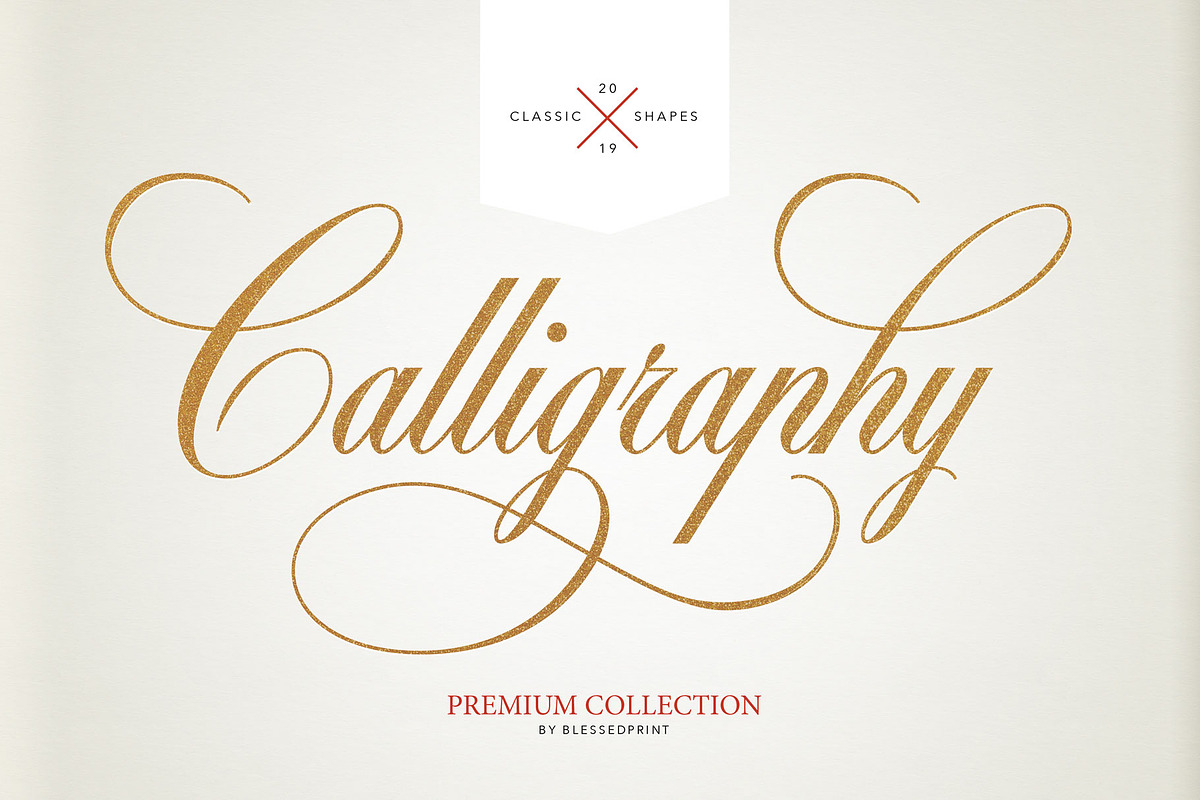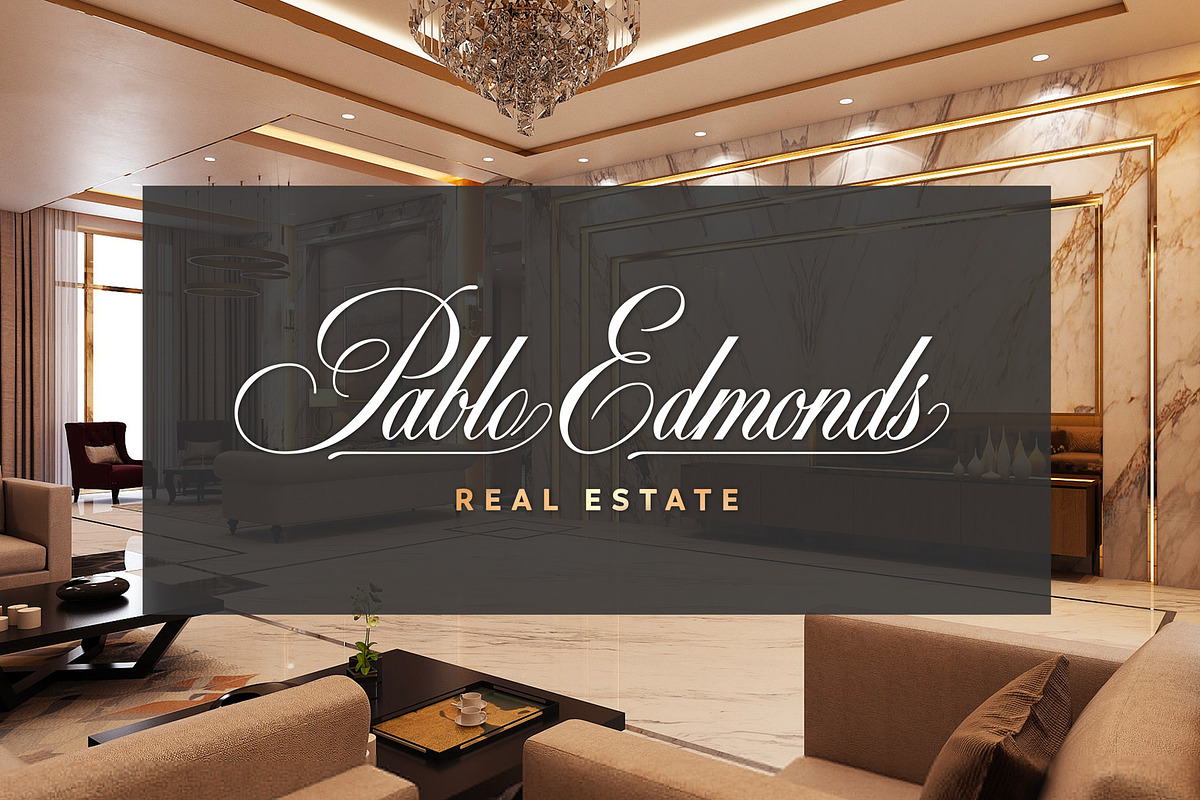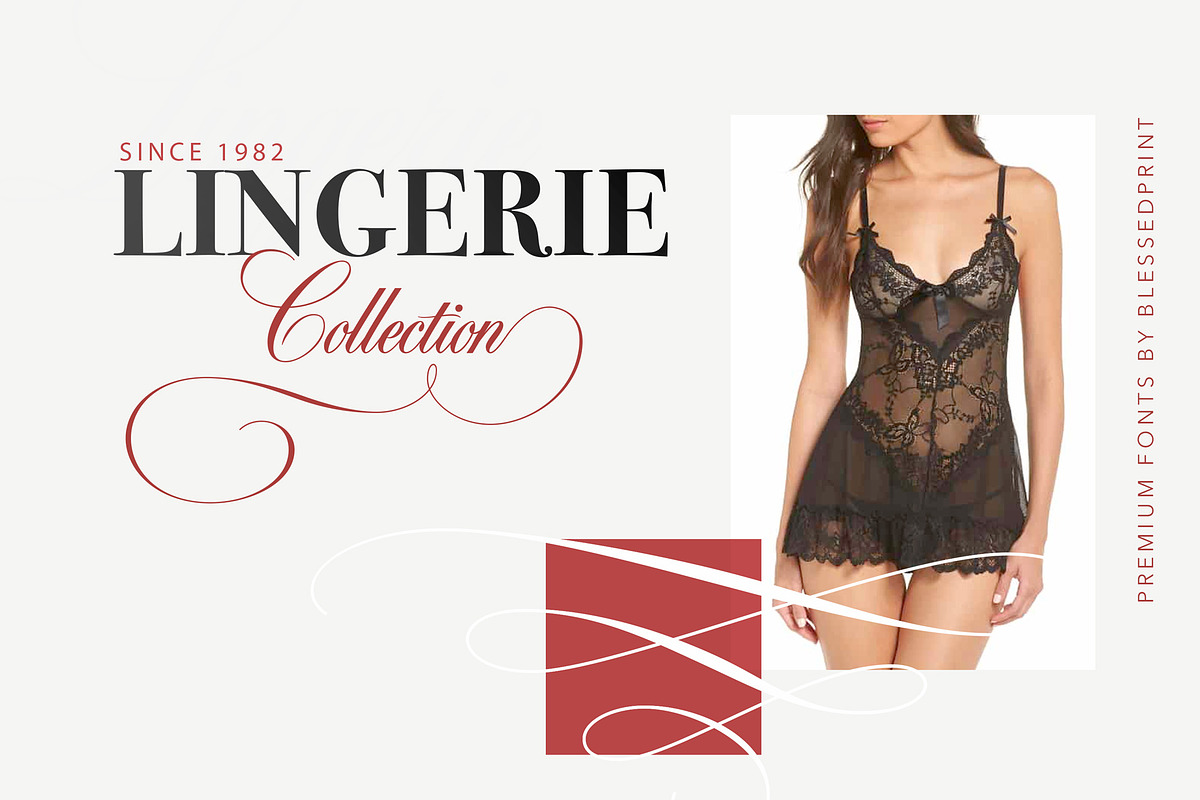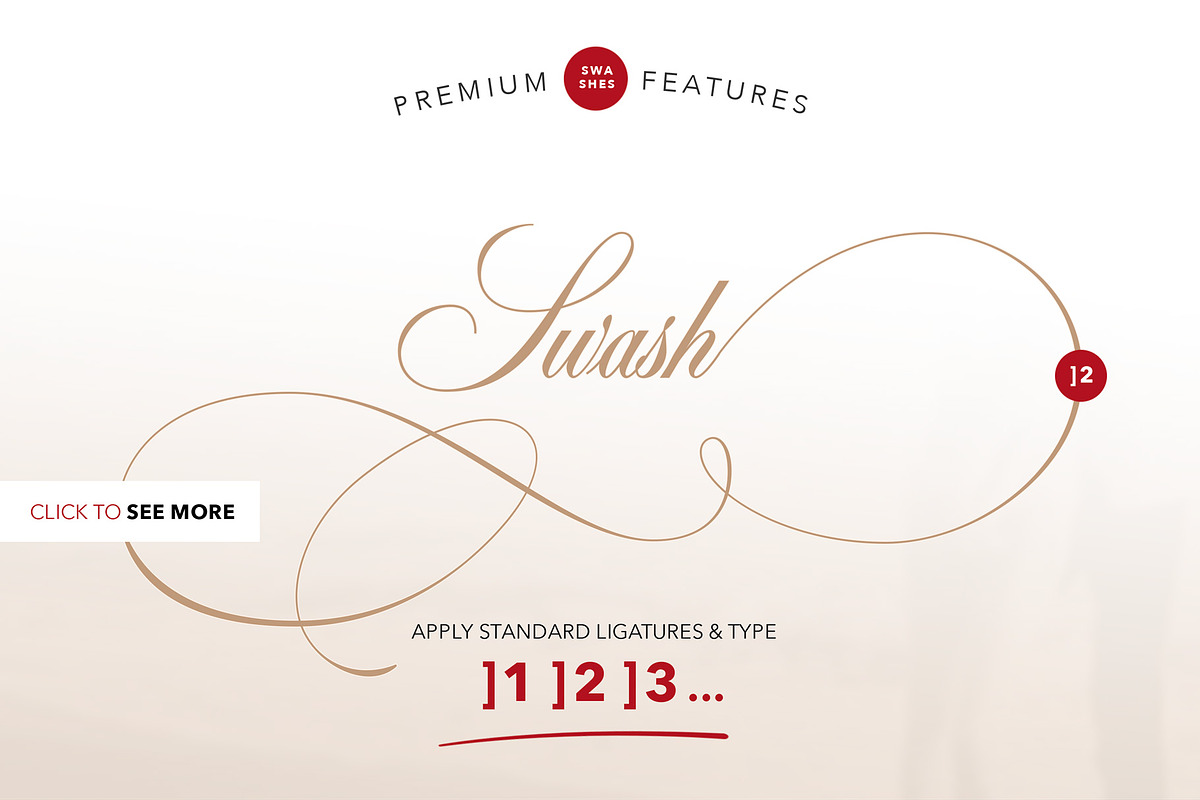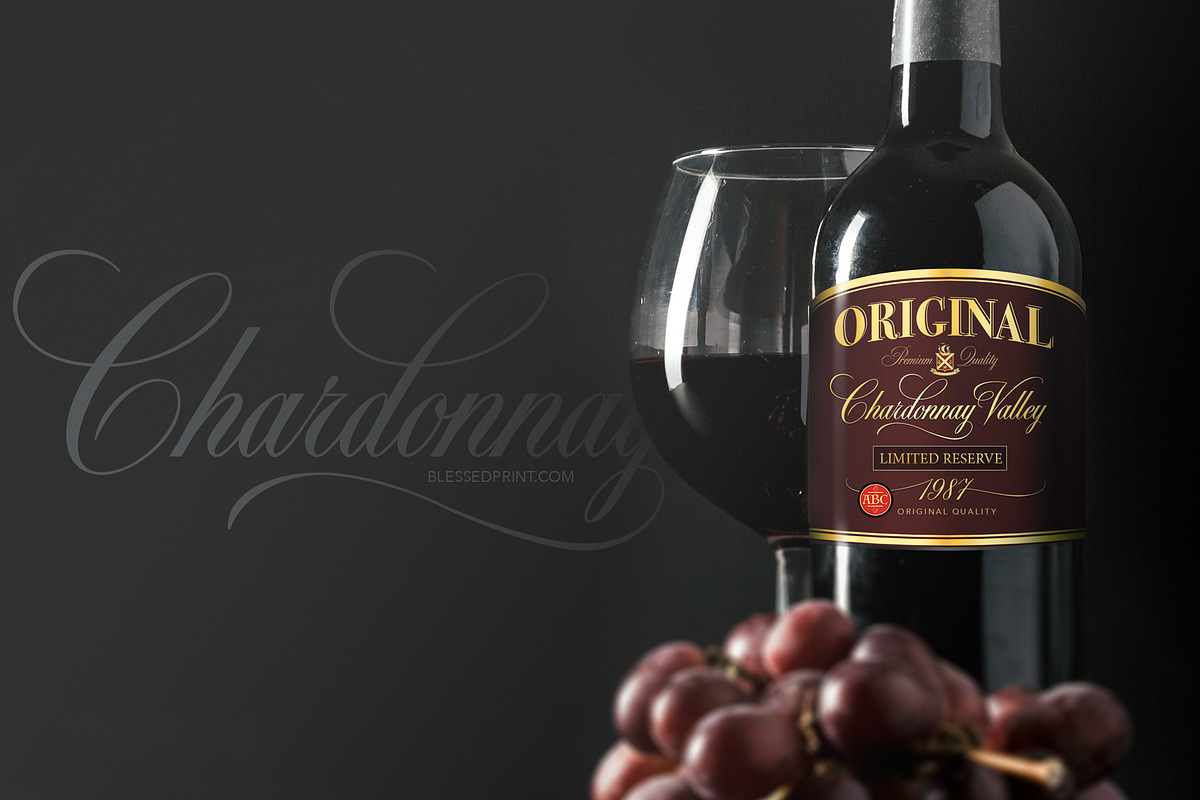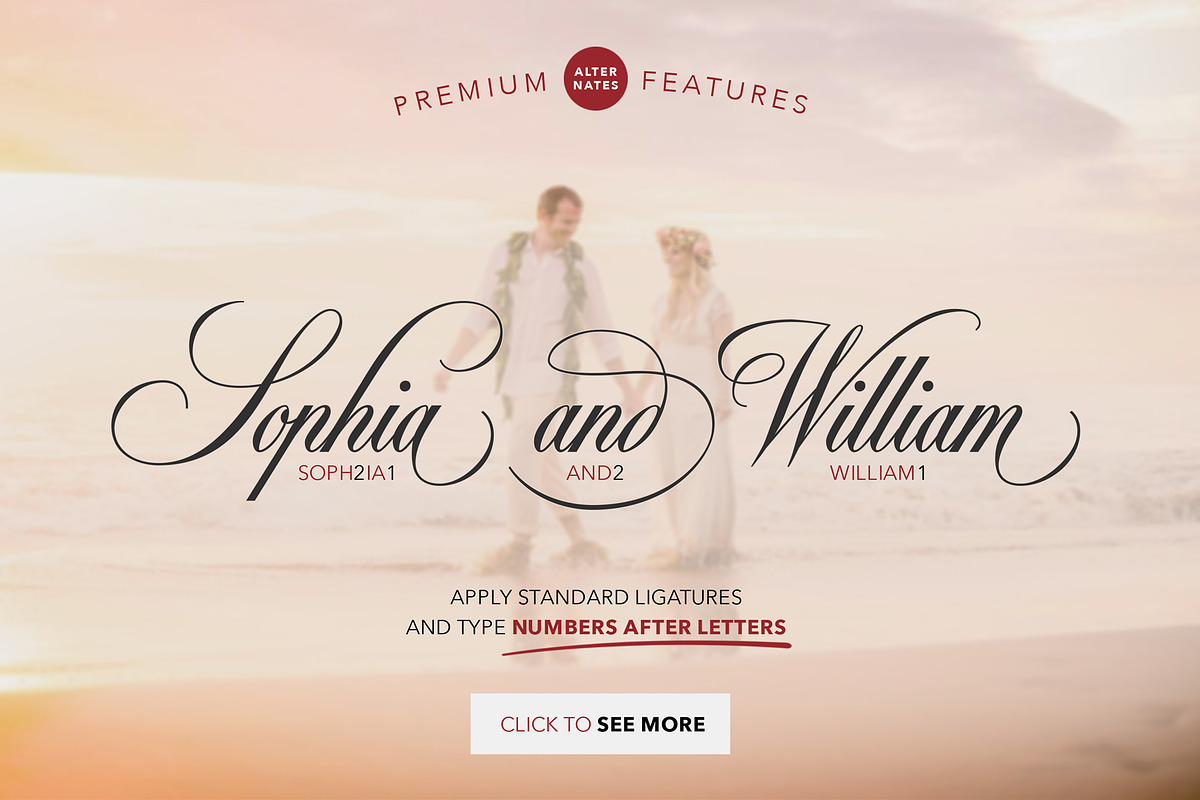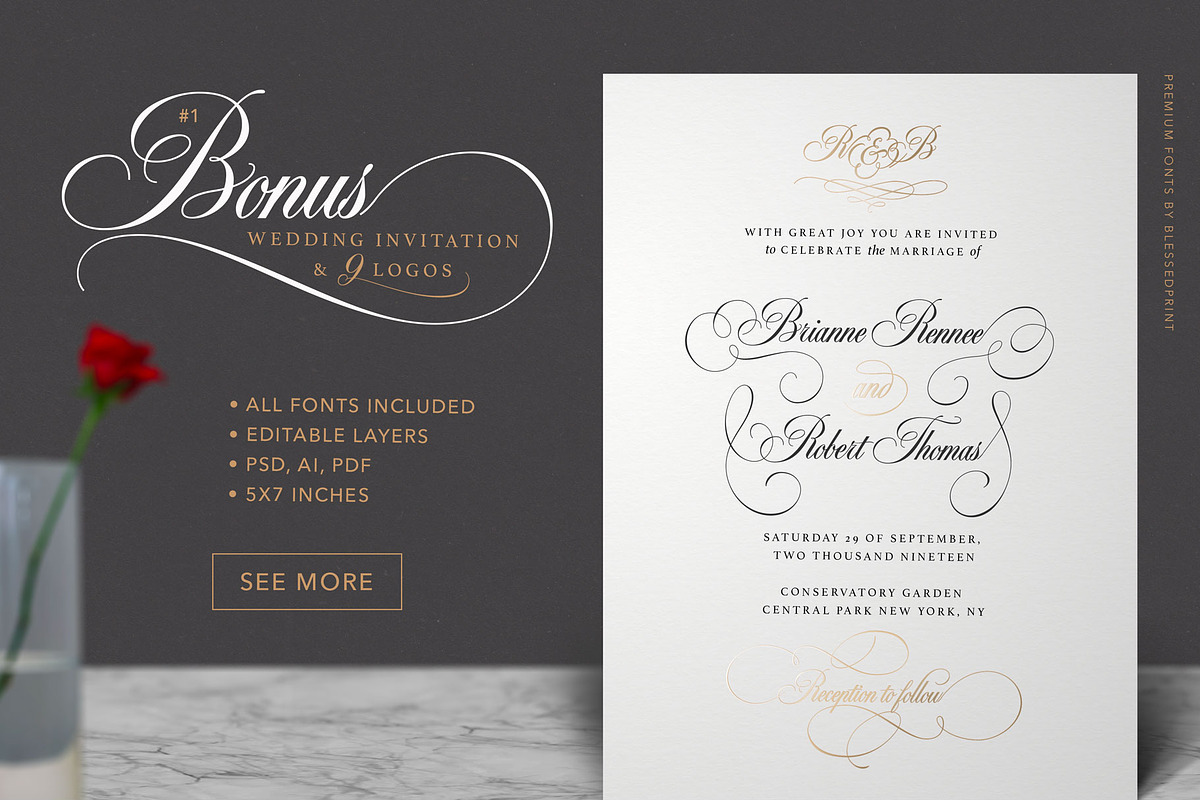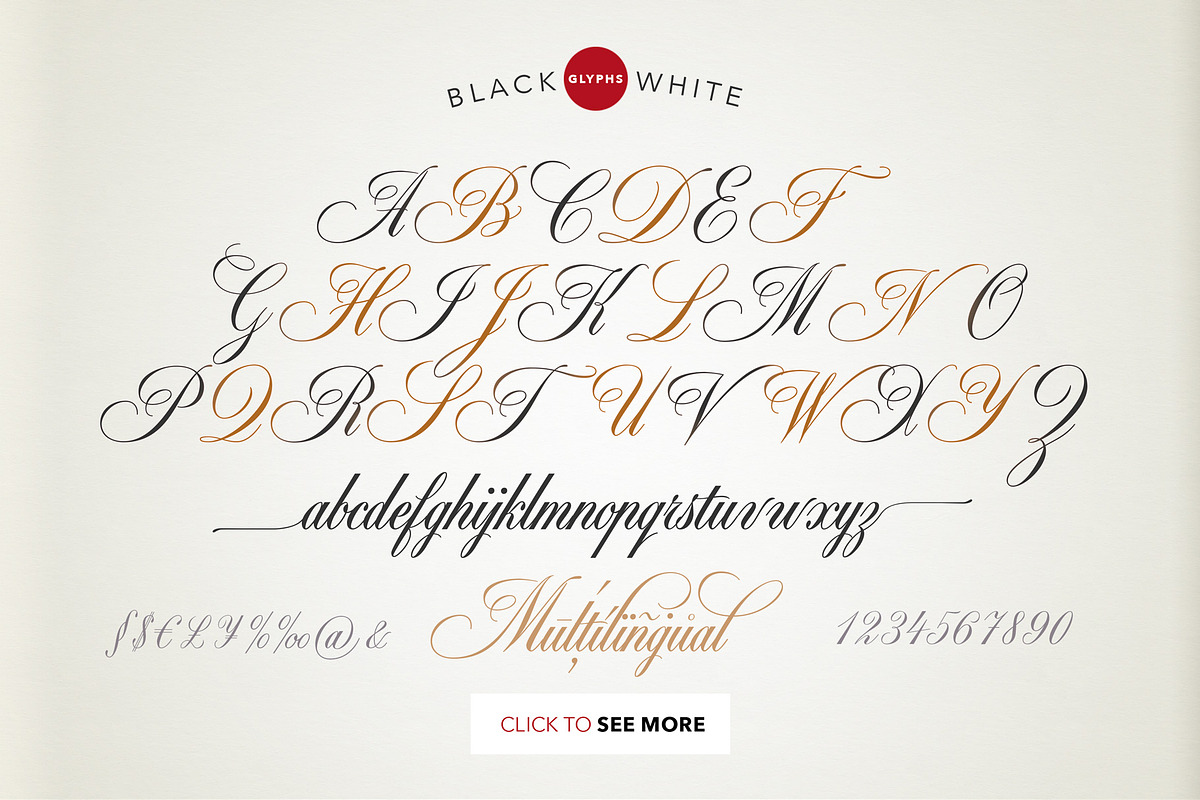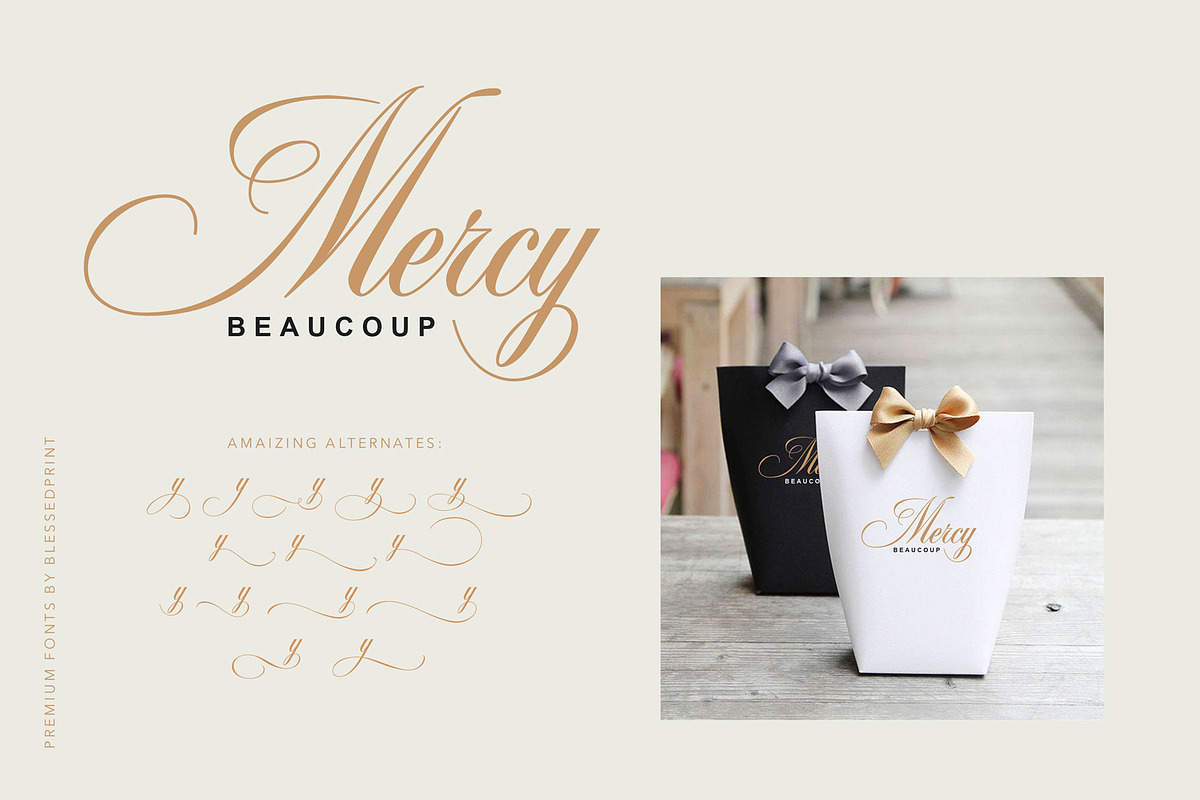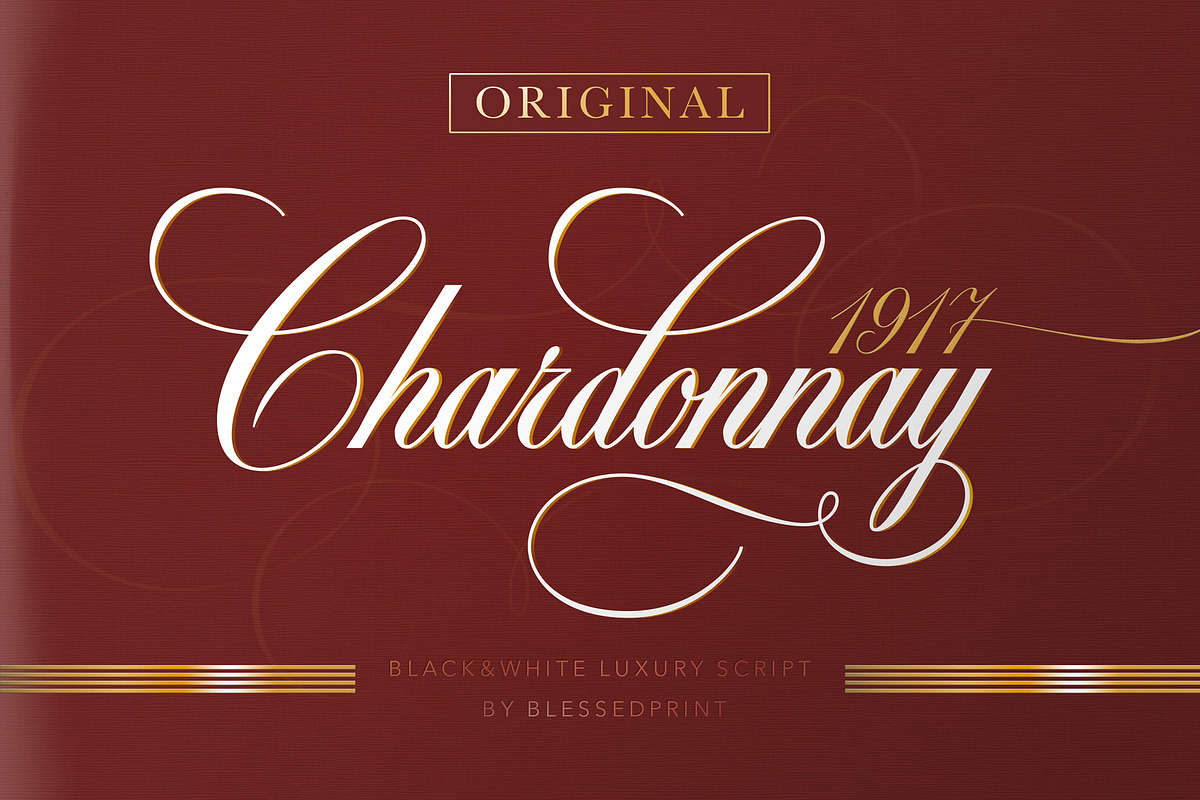
Black & White - premium quality font
Gorgeous, beautiful, elegant, outstanding... and classic? Yes, classic is judged over a period of time to be of the highest quality. It never becomes boring, because of perfect form, perfect appearance. Proud to introduce my new classic and modern, bold & cursive script: Black and White
It works absolutely easily. Try to add numbers after any letter and you see how alternates appear. Not necessary to switch windows just experiment on the go.
Try now and type below: Chardonnay. Try to add some numbers after letters d or y: Callig4raph1y Experiment with other texts [13Save Our Date]2 or [13Reception to fol2low1]2
SWASHES
Black&White font has many pre-made swashes. You can activate them by typing [1 or [2 etc. [ - for beginning. ] for endings ]1 ]2 ]3 ]4 ]5 etc. Scroll down and test it before you buy it. More options: try to add _1 _2 _3 etc... Pay attention on dates. It also works automatically when activate contextual alternates. Just type your date and see how swashes appear.
AMPERSNAD
Try to type &1 or &2: B&2R it will convert boring
- Contextual alternates
- Standard ligatures
- Stylistic alternates
- Bold
- 665 Glyphs
- Long swashes
- Pre-made swashes